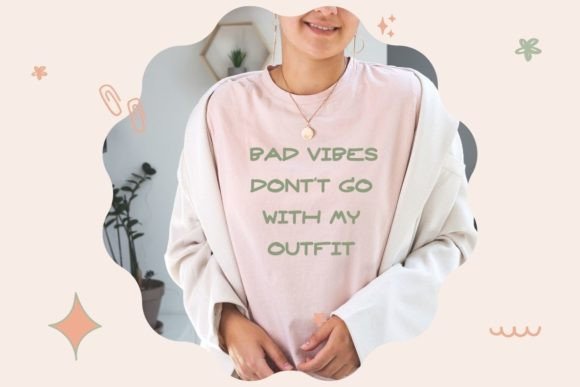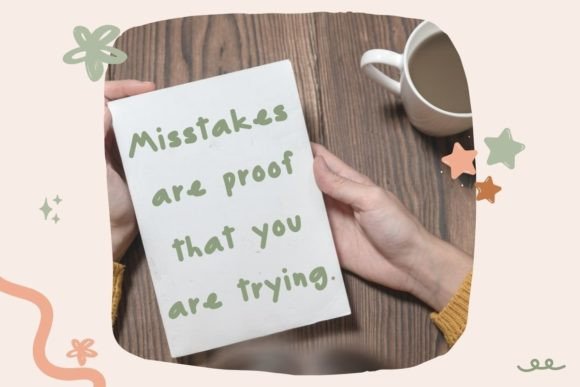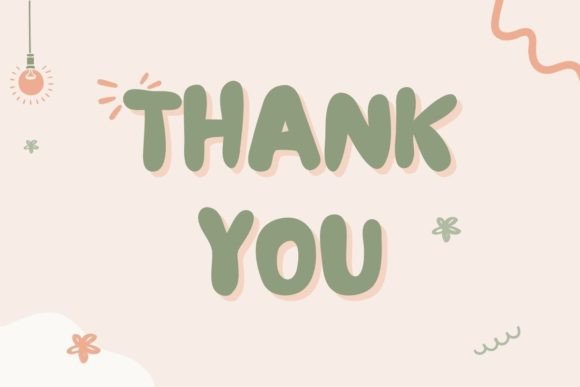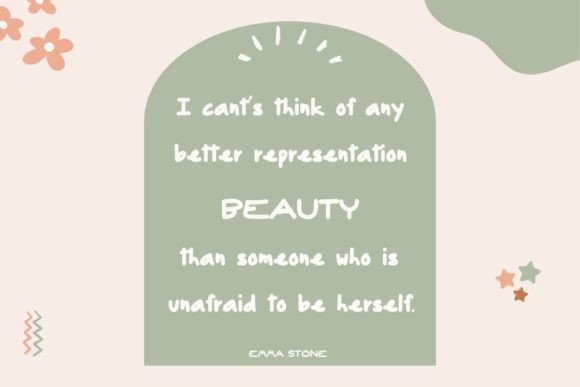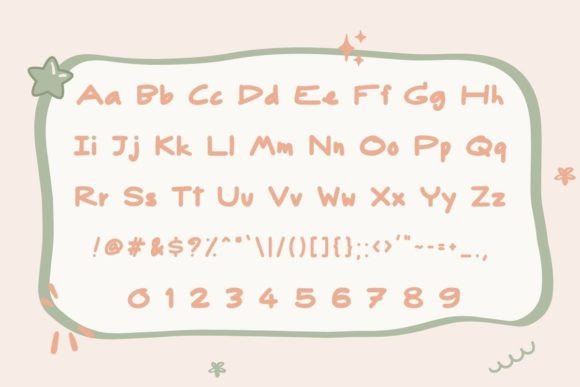
Isabela Font
About Isabela Handwritten Font
Isabela Handwritten Font is a cute, fun, and versatile typeface designed to bring joy and creativity to your projects. With light, playful strokes and balanced proportions, it captures the cheerful feel of handwriting while remaining clear and professional. Because of its adaptability, Isabela Handwritten Font is perfect for kids’ crafts, posters, cards, sublimation projects, web graphics, and packaging.
A Playful Typeface with Friendly Style
Handwritten fonts often add warmth and originality, and Isabela Handwritten Font embodies these qualities perfectly. Its light, airy strokes give designs a soft and approachable personality. In addition, the carefully crafted form ensures readability across both print and digital platforms, making it suitable for professional and casual use alike.
Perfect Typeface for Crafts and Cards
Creative projects deserve fonts that bring them to life, and Isabela Handwritten Font is an excellent choice. For example, it enhances children’s crafts, birthday cards, and thank-you notes with charm. Moreover, it works beautifully for posters, invitations, and seasonal cards, adding a joyful and personal touch to every design.
A Handwritten Typeface for Posters and Packaging
Designers and businesses can also benefit from Isabela HandwrittenFont in branding and packaging. It looks great on playful logos, product labels, and custom merchandise. Furthermore, it adapts seamlessly to advertising campaigns, magazine layouts, and promotional graphics. When paired with minimalist sans serif fonts, it creates a balanced, professional yet cheerful identity.
Flexible Across Print and Digital Media
Another advantage of Isabela HandwrittenFont is its versatility across different mediums. In print, it adds charm to posters, brochures, and stationery. Digitally, it integrates smoothly into blogs, websites, and social media designs. Since it scales well from small icons to large banners, it guarantees clarity and consistency across formats.